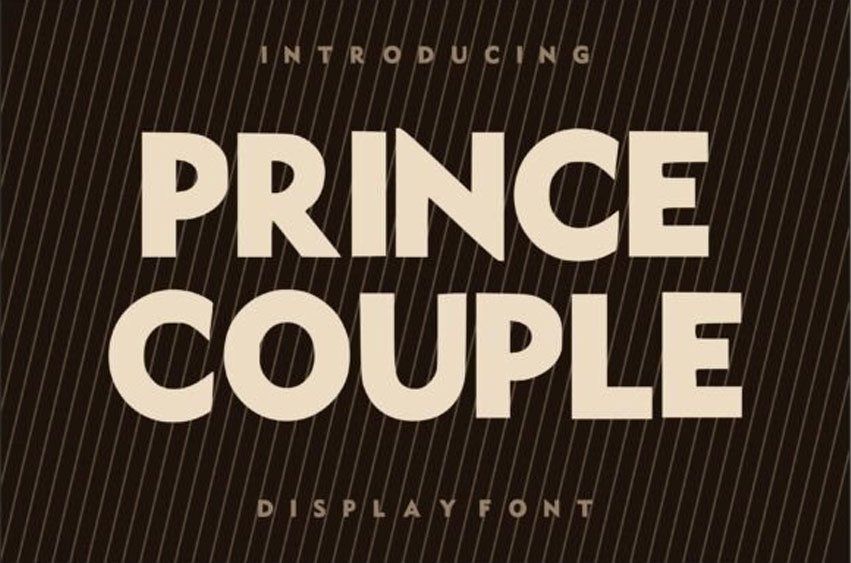
Prince Couple Font is a bold and stylish display font designed to make a strong visual impact. With its clean lines, thick strokes, and modern geometric shapes, this typeface is perfect for eye-catching headlines, branding, posters, logos, and social media graphics.
Its elegant yet powerful character makes it suitable for both romantic and premium-themed designs, giving your projects a sophisticated and professional look. Whether you’re creating wedding invitations, fashion branding, or bold typography posters, Prince Couple delivers a confident and timeless aesthetic.